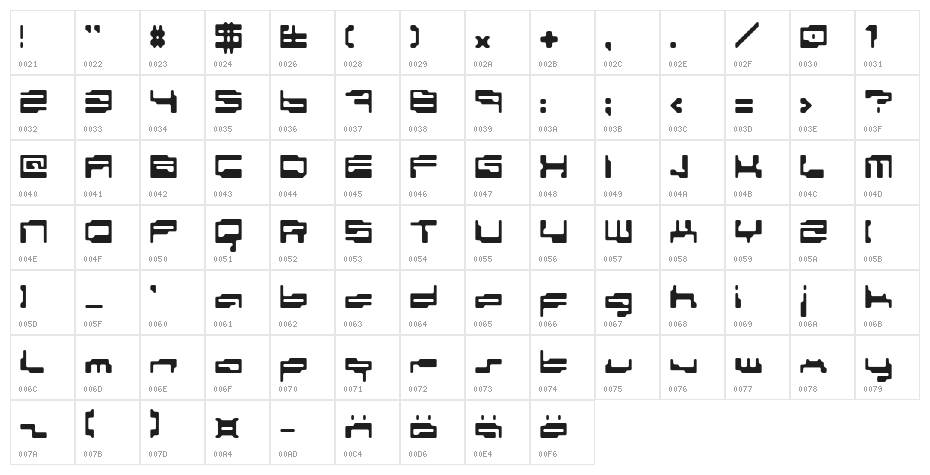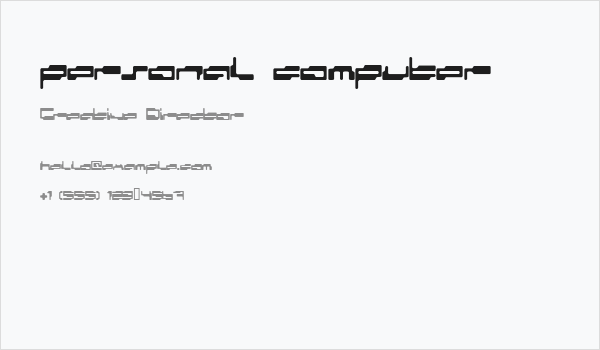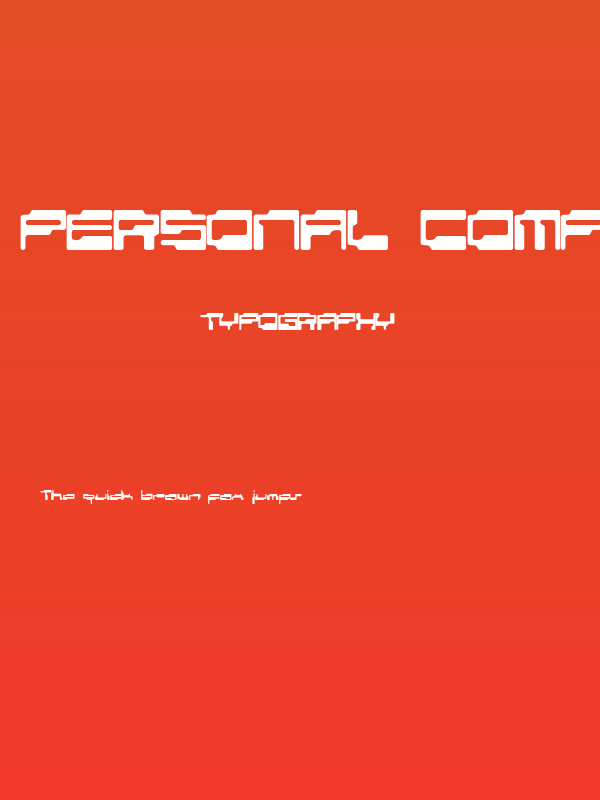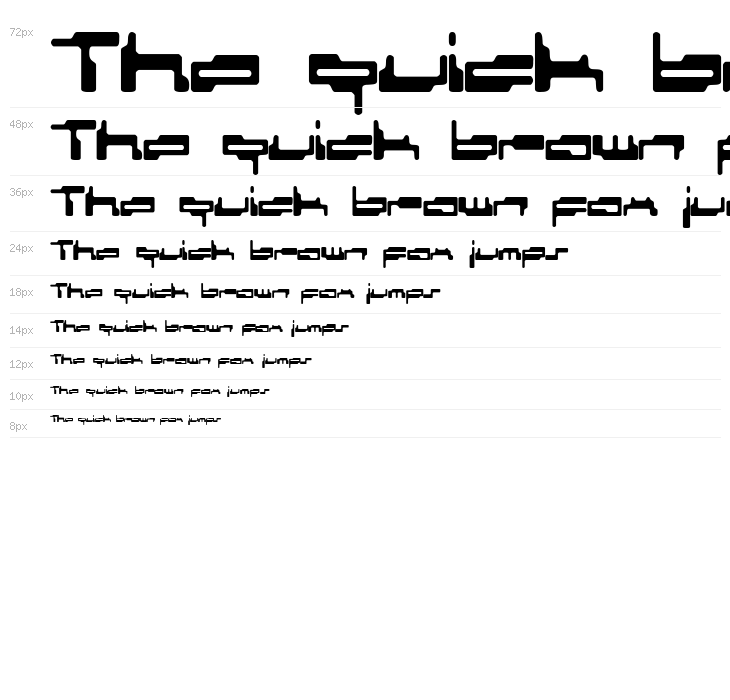
personal computer Font
personal computer Description
This font features a futuristic and digital aesthetic, characterized by its bold and blocky letterforms. The characters are constructed with a geometric precision, incorporating sharp angles and straight lines that evoke a sense of modern technology. The uppercase and lowercase letters maintain a consistent style, with a uniform thickness that adds to the font's robust appearance. The numerals and special characters follow the same design principles, ensuring a cohesive look across all glyphs. This font's unique style makes it ideal for projects that require a tech-savvy or sci-fi theme.
| Proposed Projects | Ideal for tech-related branding, sci-fi movie posters, video game titles, and digital interfaces. |